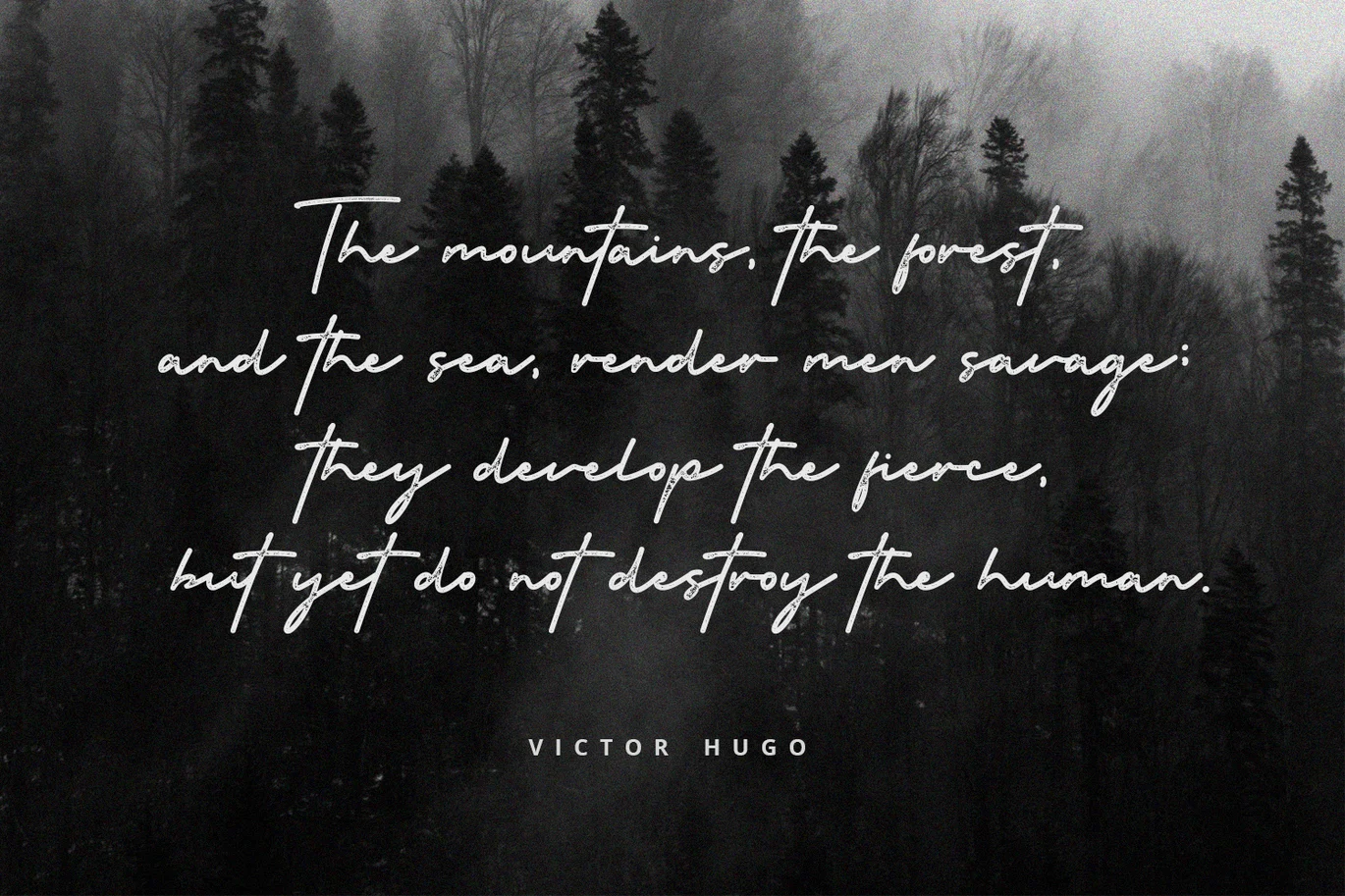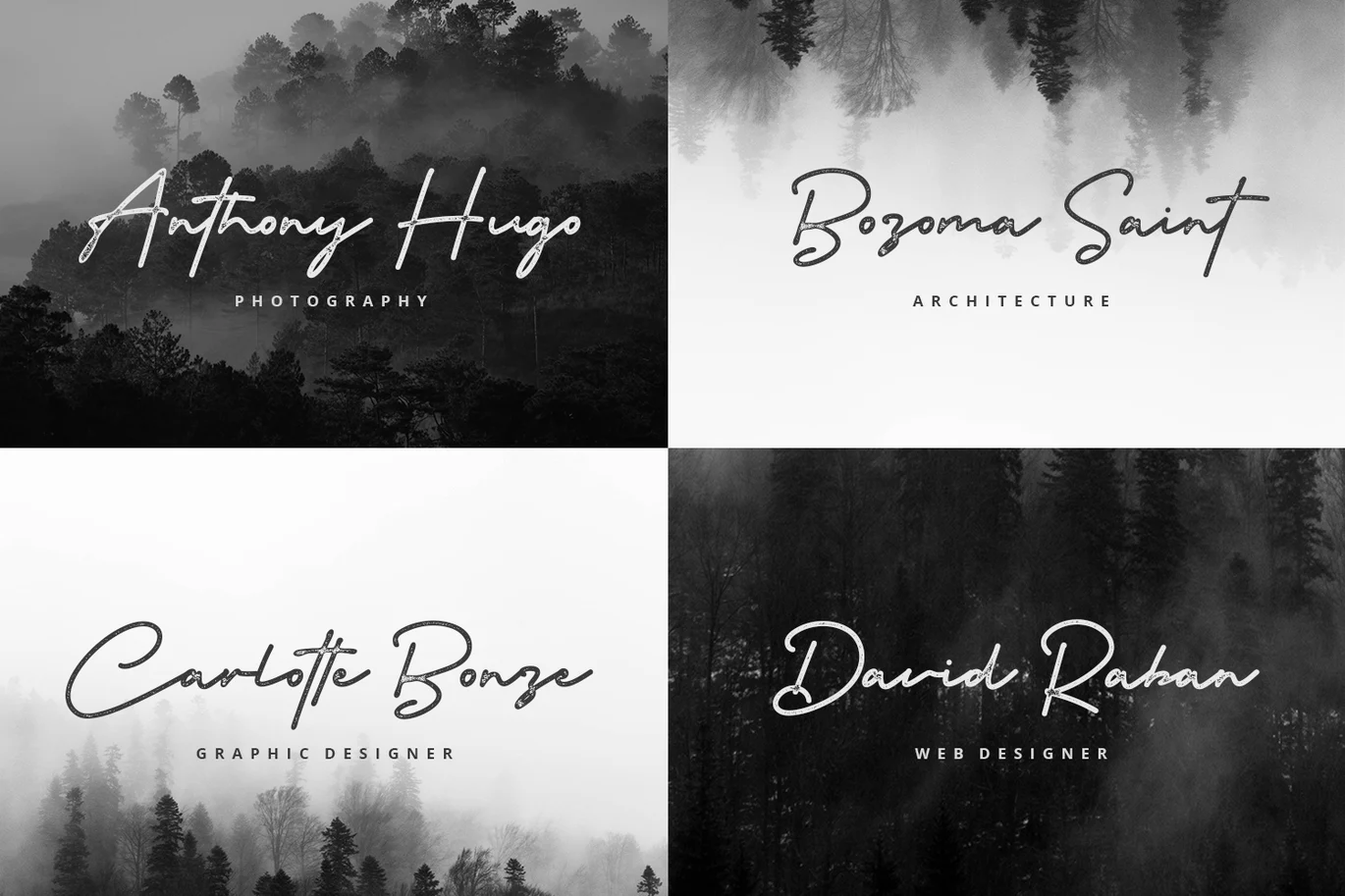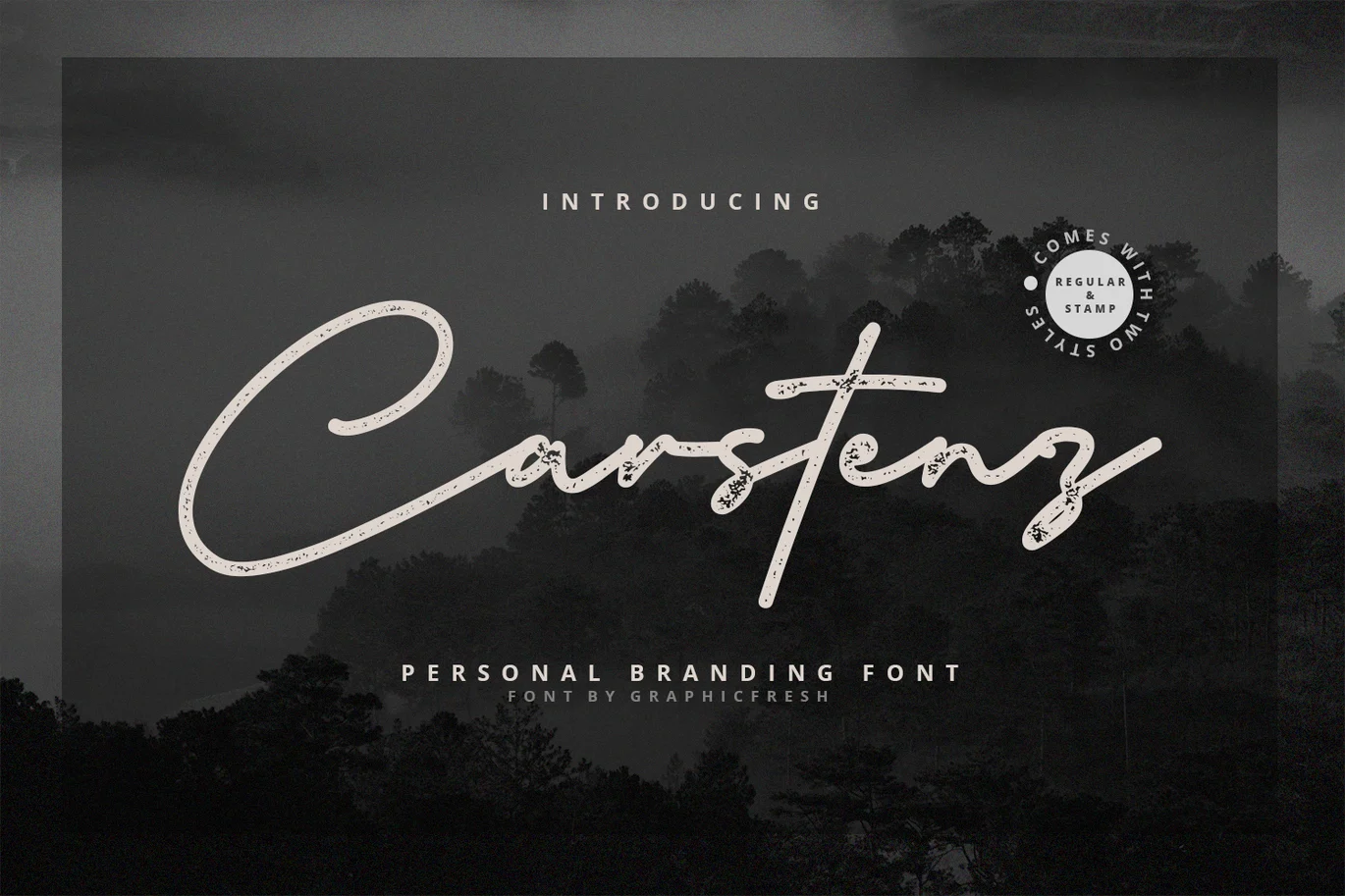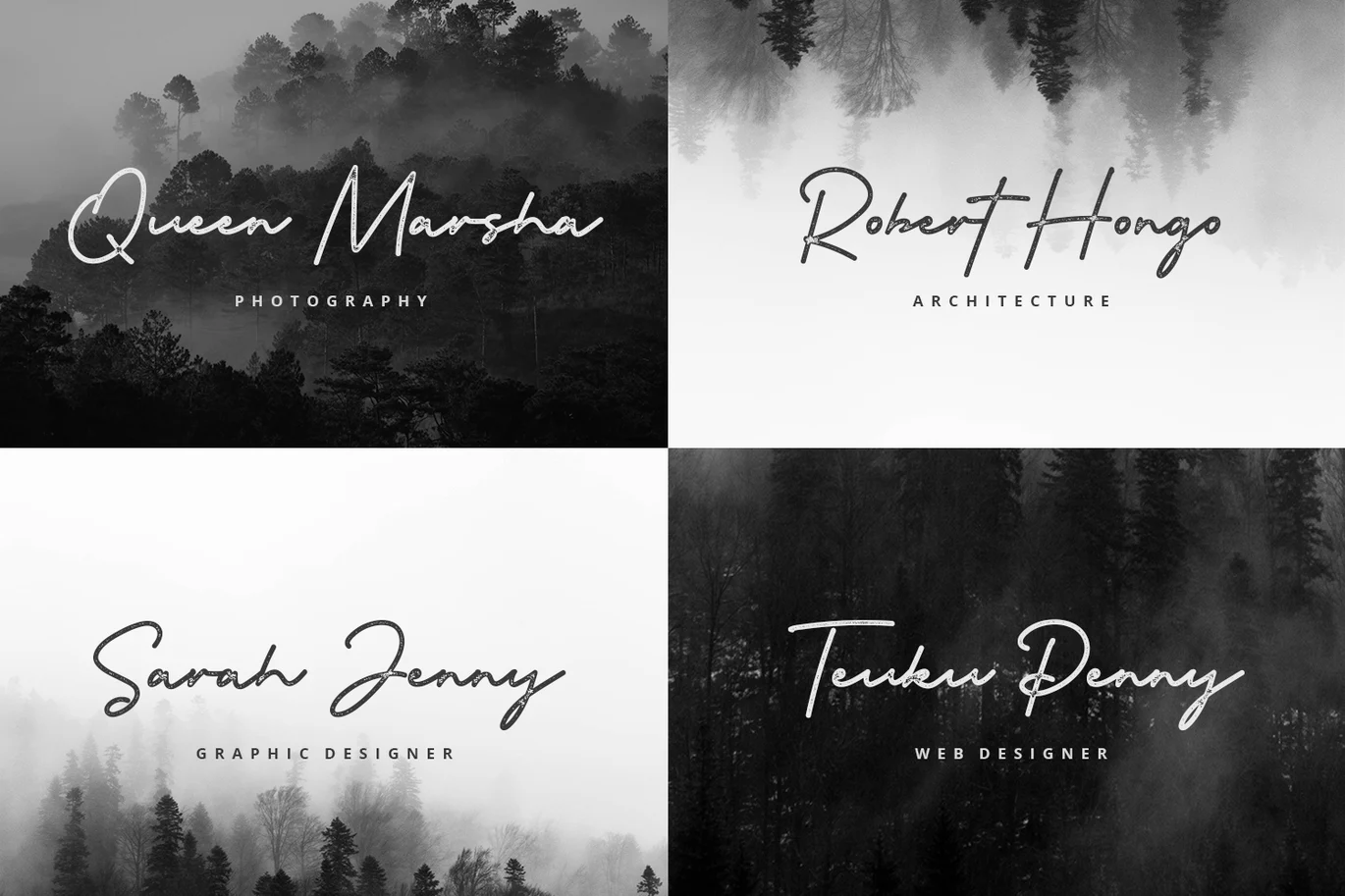
Carstenz Vintage Type Font
Carstenz Vintage Type
Using scripts are a good way to make your work instantly classy and timeless. Make editorial or professional pieces come to life with this modern script. It comes in regular and stamp styles, that require no special software at all. Use Carstenz on business cards, homepages, portfolios, invitations, and branding endeavors. you can create modern vintage looks in minutes.
Carstenz Vintage Type Features:
- Numerals & Punctuations
- Non-Western English
- Suitable for Headlines, Logotypes, Signs, Posters, Letterhead, T-Shirt and many more.